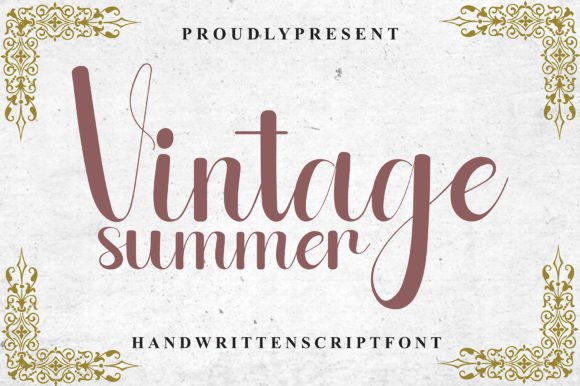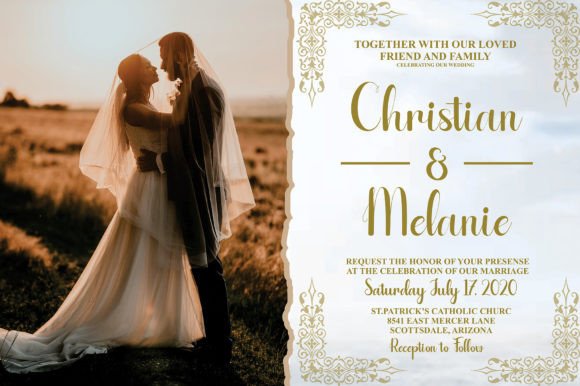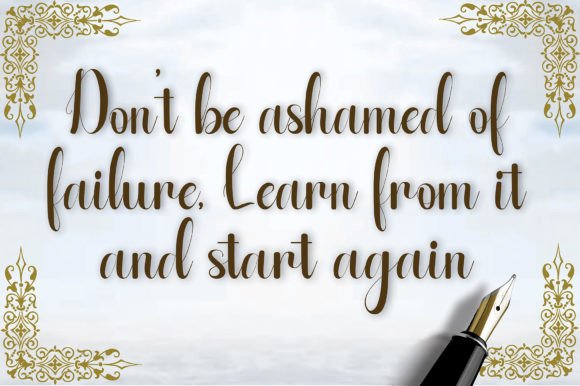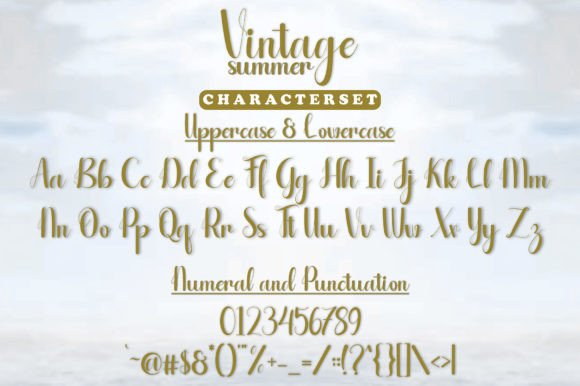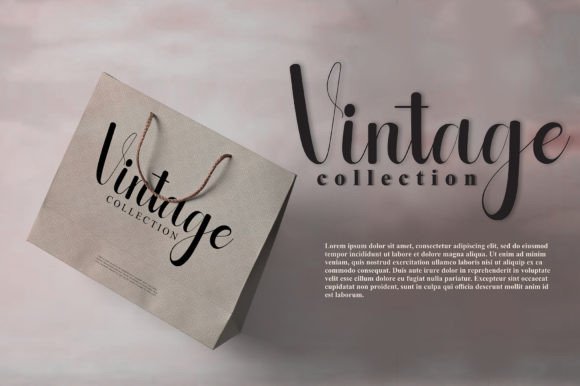
About Vintage Summer Font
Vintage Summer is a charming handwritten font that combines timeless elegance with a fresh, modern feel. Every letter has been carefully designed to look graceful and inviting. It’s the perfect choice when you want to add a personal touch to your projects.
From romantic wedding invitations to stylish logos, Vintage Summer adapts effortlessly to different design needs. It’s a font that feels warm, elegant, and beautifully handcrafted.
Timeless Elegance for Every Project
Vintage Summer stands out because it captures the nostalgic feeling of summer while staying refined and professional. The smooth curves and delicate strokes make each letter flow perfectly.
This unique combination of classic charm and modern style ensures your text always looks polished and memorable.
Versatile and Ready for Any Use
This font is incredibly flexible. You can use it for many types of creative work, including:
Wedding Invitations: Create romantic stationery with a handmade feel.
Thank You Cards: Express gratitude in a personal, heartfelt way.
Logos and Branding: Build an elegant identity for boutiques or artisan brands.
Greeting Cards: Make every occasion special with beautiful lettering.
Quotes and Posters: Turn inspiring words into works of art.
Social Media Graphics: Share eye-catching messages with a signature touch.
Product Packaging: Elevate labels and boxes with refined script.
Business Cards: Impress clients with professional, graceful typography.
Why Choose Vintage Summer?
Designers love Vintage Summer because it offers:
Elegance: Each stroke feels delicate and refined.
Warmth: The handwritten style feels personal and inviting.
Versatility: Suitable for casual and formal projects alike.
Readability: Clear and smooth, even with decorative details.
Professional Finish: Adds a polished look to any design.
Design Tips for the Best Results
Pair with Simple Fonts: Balance Vintage Summer’s elegance with clean serif or sans serif fonts.
Use Light Backgrounds: Soft colors or white help the letters stand out.
Play with Size: Large headlines highlight the font’s graceful details.
Adjust Spacing: Tweak kerning for perfect alignment.
Add Soft Accents: Subtle flourishes or pastel colors enhance the vintage feel.
Vintage Summer is more than a font—it’s an opportunity to bring beauty and authenticity into every project. Whether you’re designing a logo, a wedding suite, or social media graphics, this font will elevate your work and leave a lasting impression.
Embrace the elegance of Vintage Summer and watch your designs transform into something extraordinary.